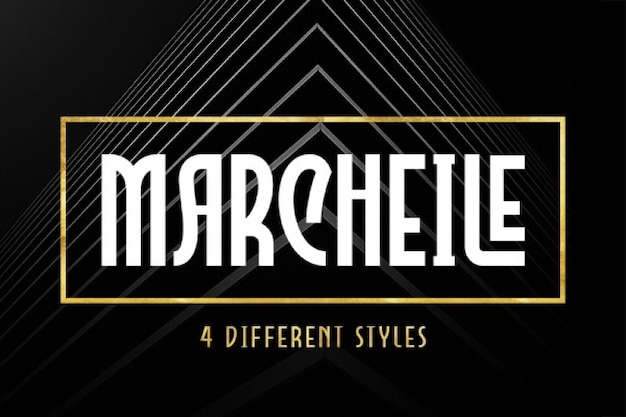
Marcheile Font
This Marcheile font has a fascination for sleek figures, streamlined shapes and linearity. This all-caps typeface with elongated strokes reminiscent of Great Gatsby art can be applied to many formats, specially to those related to furniture, drinks, libraries and jewelry. In addition, it includes four styles you can combine: regular, bold, inline and condensed. Download it from Freepik now!